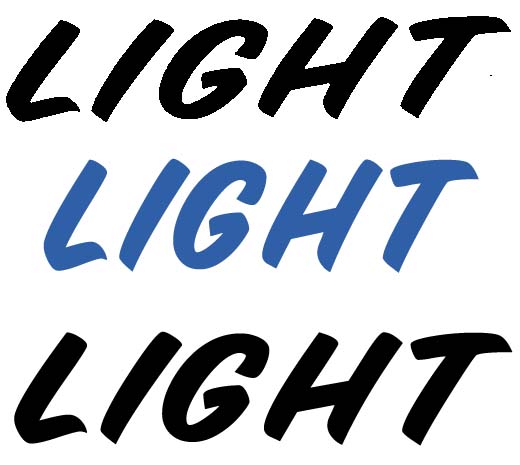
Font?
could anyone identify the attached font? and where to purchase
I posted on What the font but no matching
The font appears to be a stretched version of WSI Speedy Marker. In the attached image, the top line is your original, the blue line is Speedy marker without modification, and the bottom line is stretched to 115%.